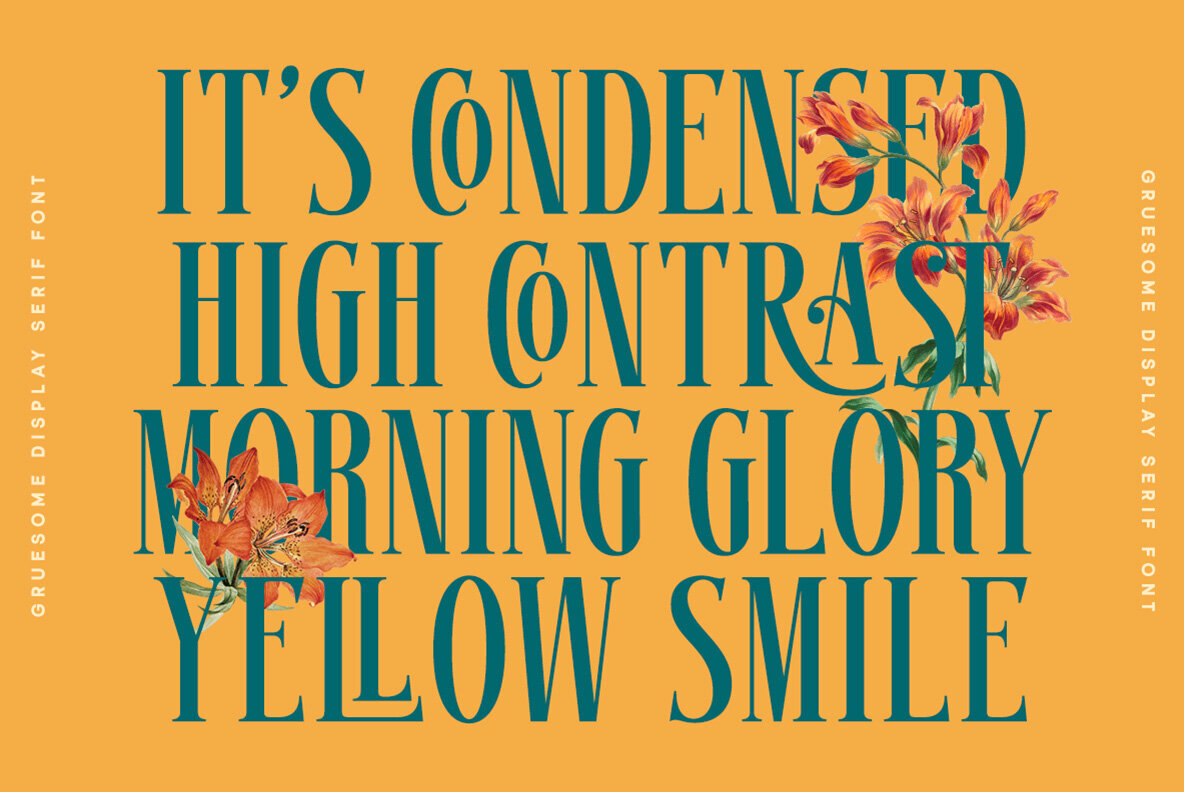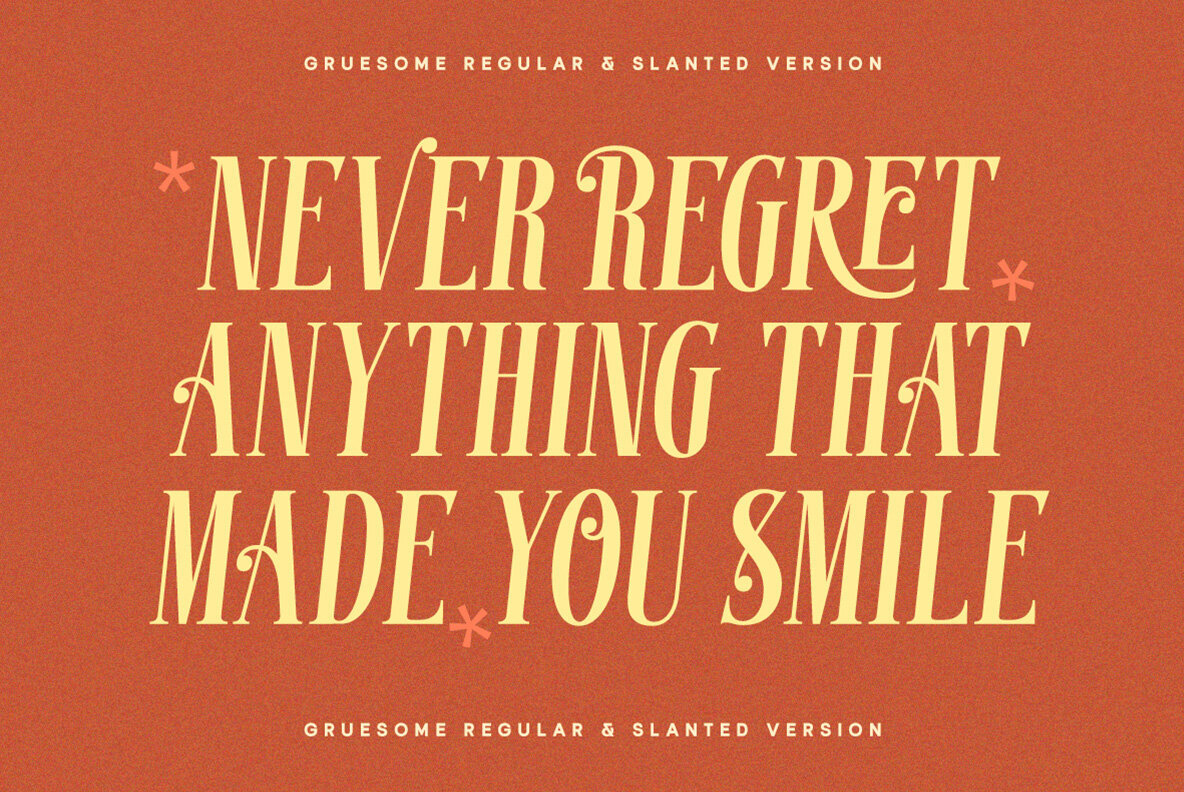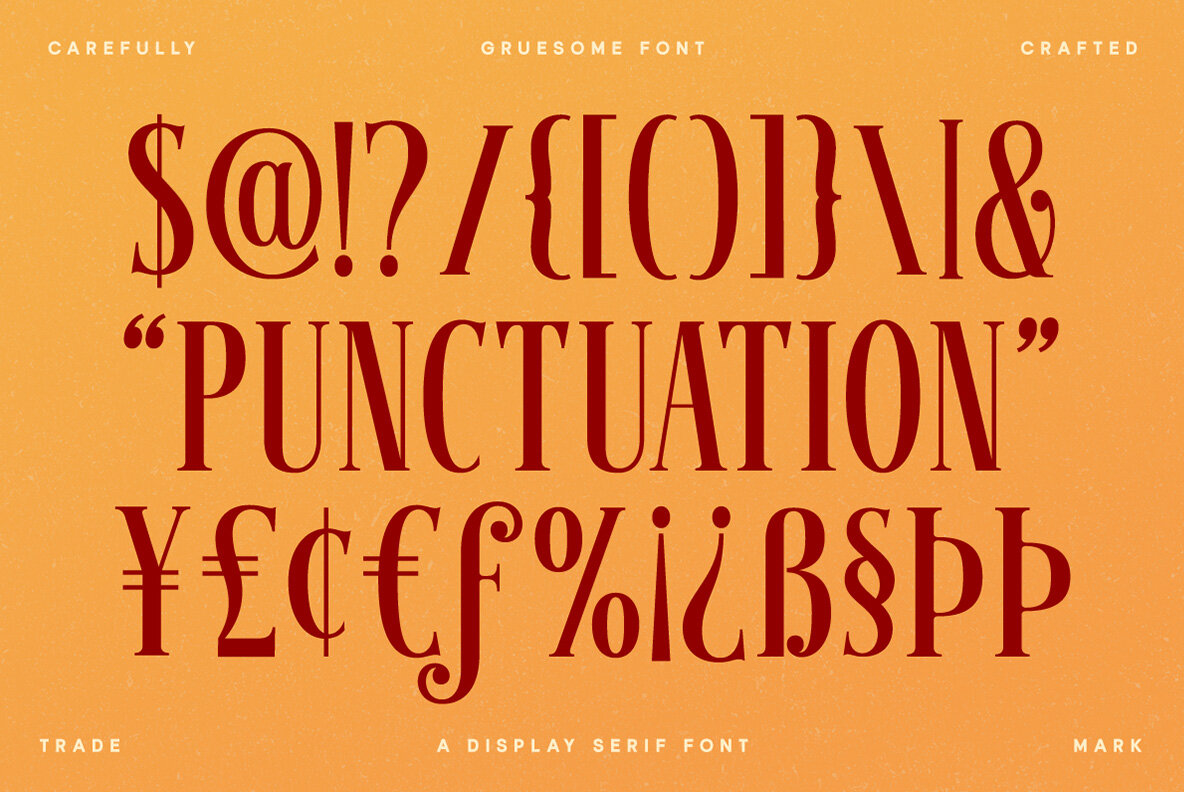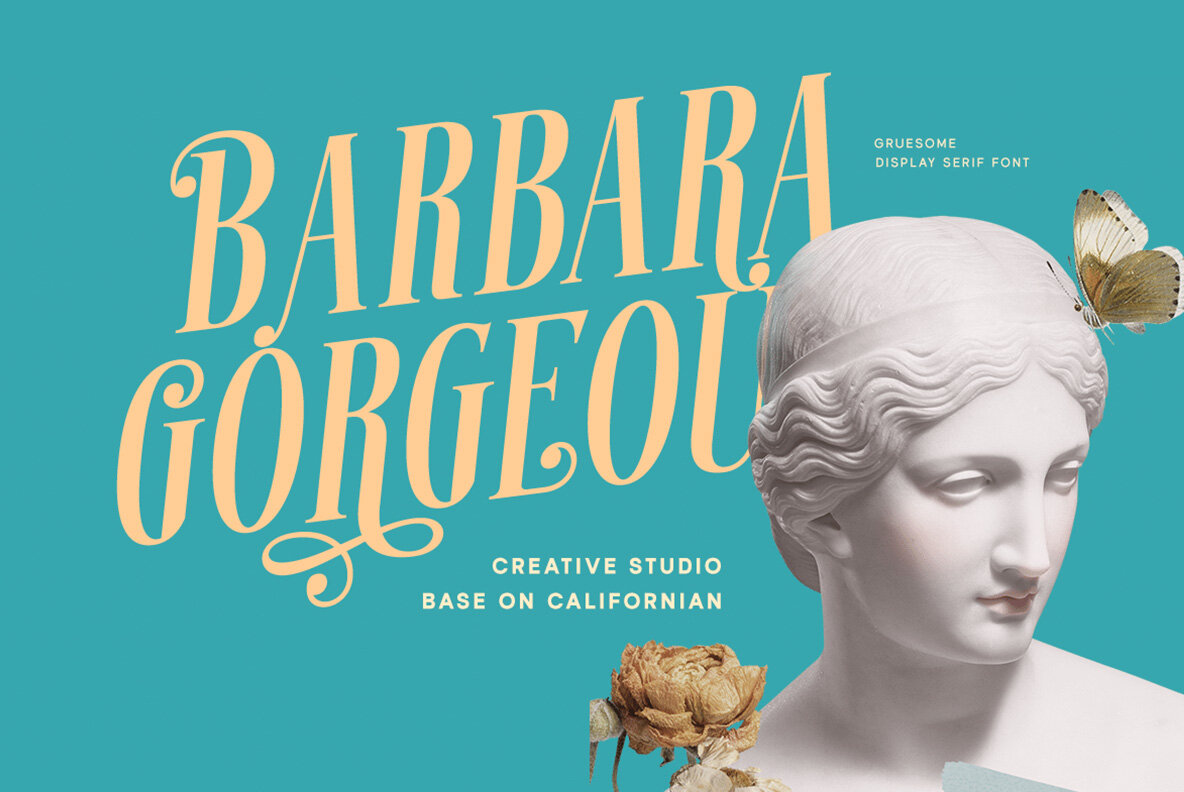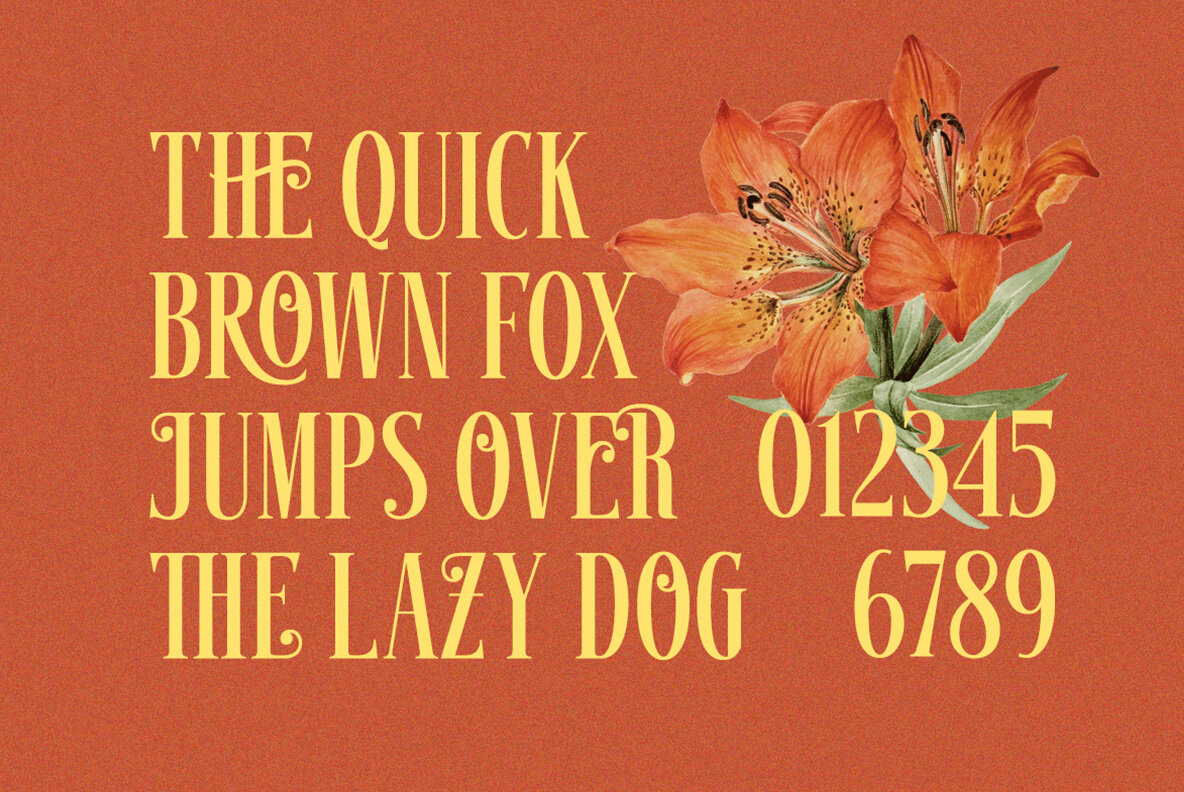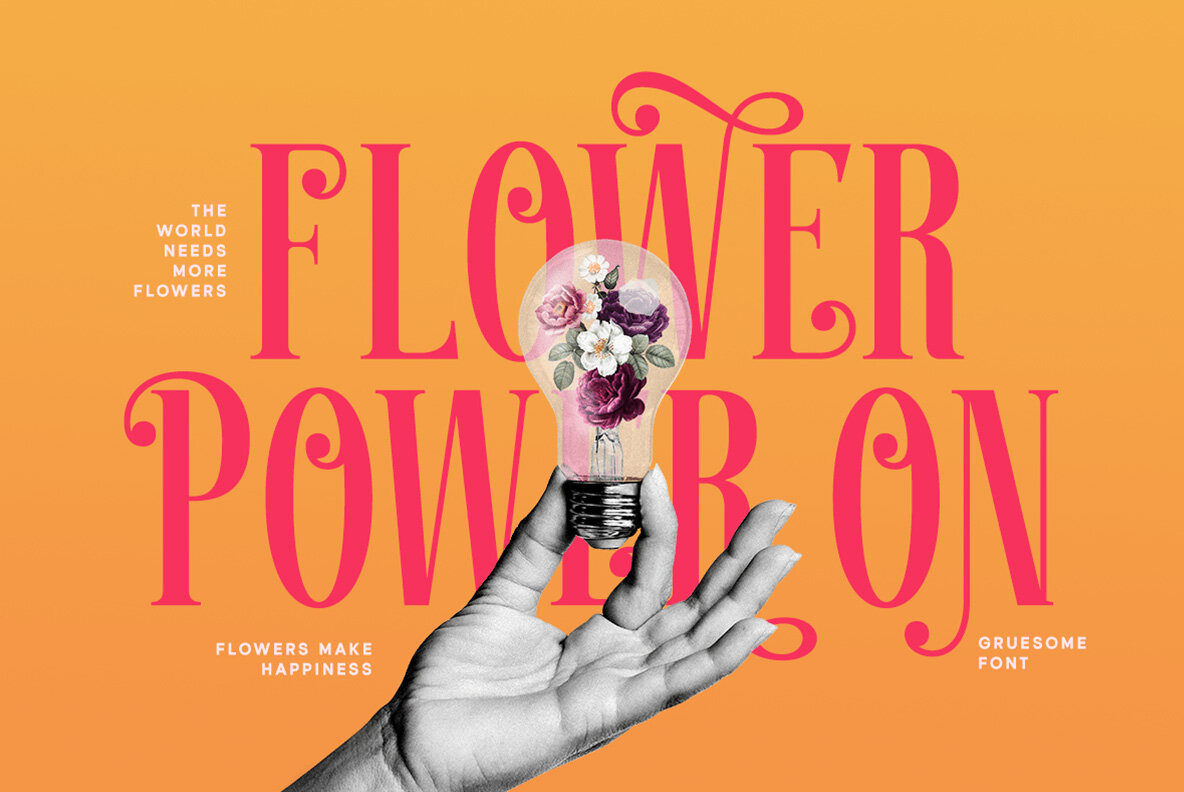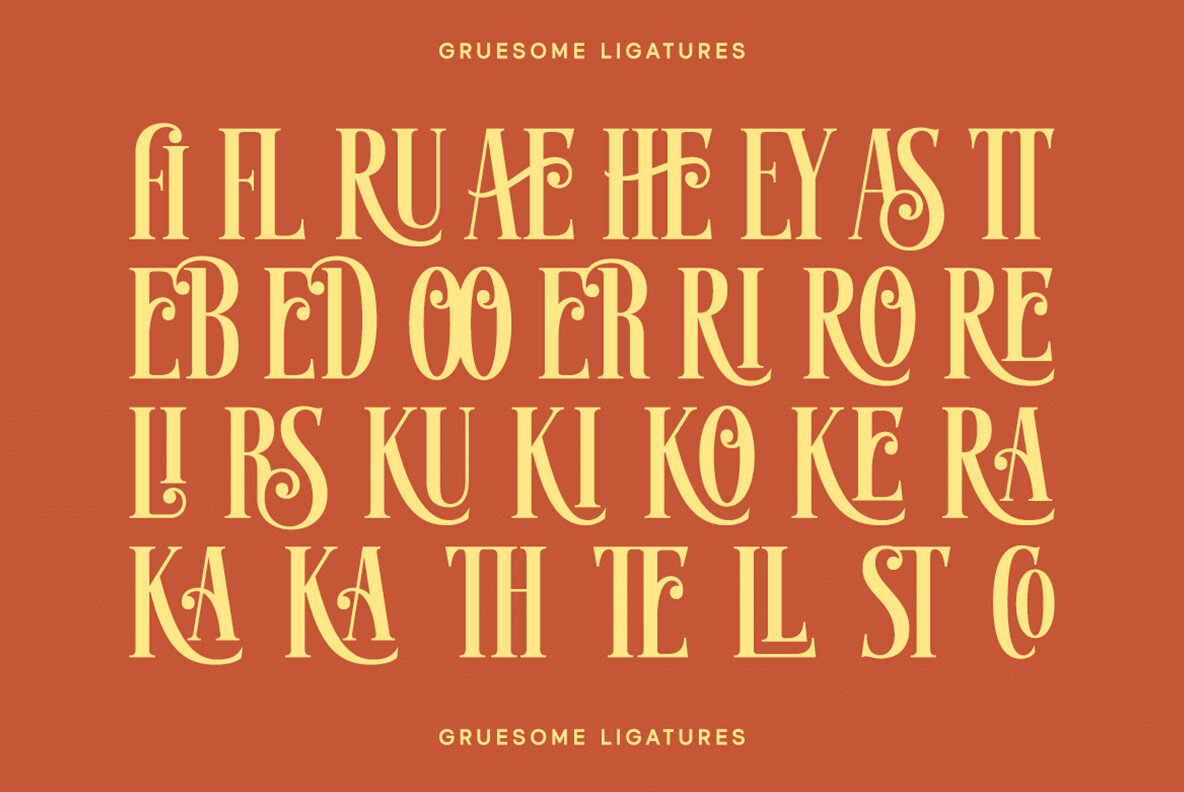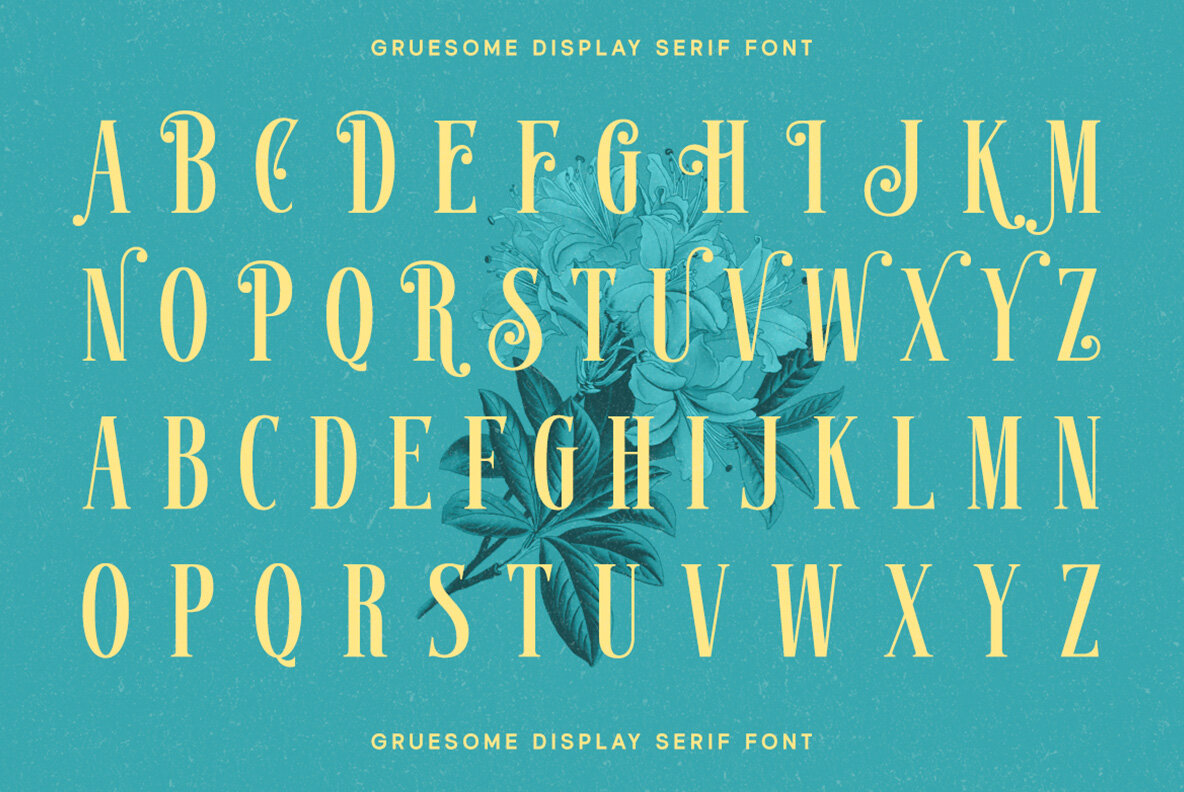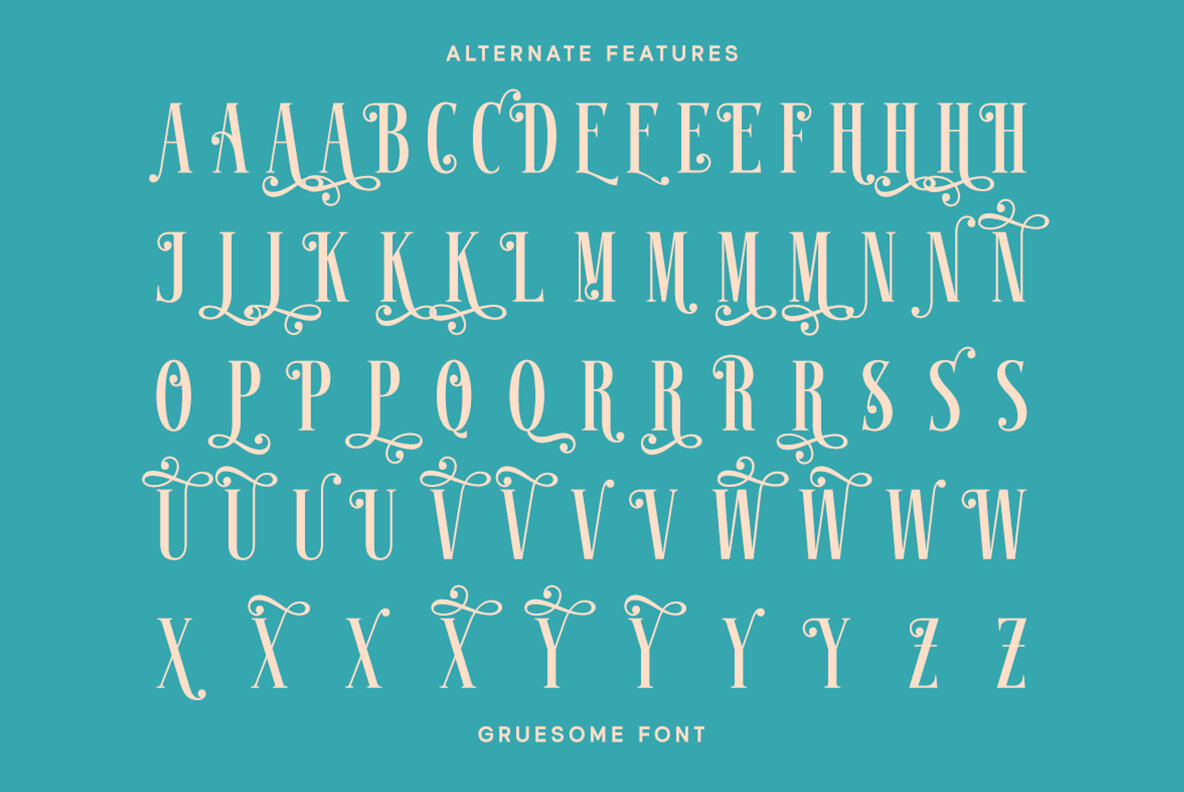
Gruesome Font
Gruesome is a captivating display serif font that brings a vintage touch to modern designs. With its stylistic alternates and ligatures, Gruesome distinguishes itself from conventional serif fonts, offering designers a distinctive edge. This font excels in diverse applications, particularly logos, formal invitations, labels, and various print materials, including magazines, books, and greeting cards. Its aesthetic flexibility extends to packaging, fashion, and advertising, ensuring resonance across industries. For optimal utilization, we suggest using programs that support OpenType features and Glyphs panels, such as Adobe applications and Corel Draw, to fully explore Gruesome’s extensive design capabilities.Gruesome: Vintage Display Serif with Unique Features